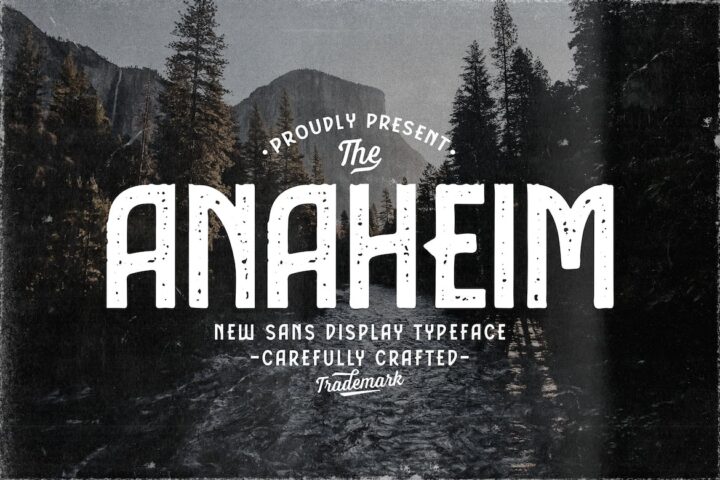
Anaheim Sans Display Typeface
Introducing Anaheim Sans Display Typeface. This perfect for the purposes of designing templates, brochures, videos, advertising branding, logos and more.